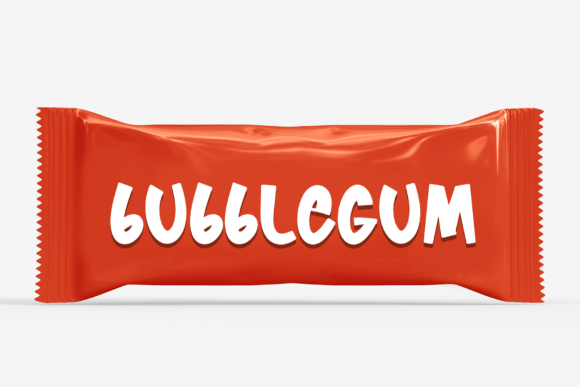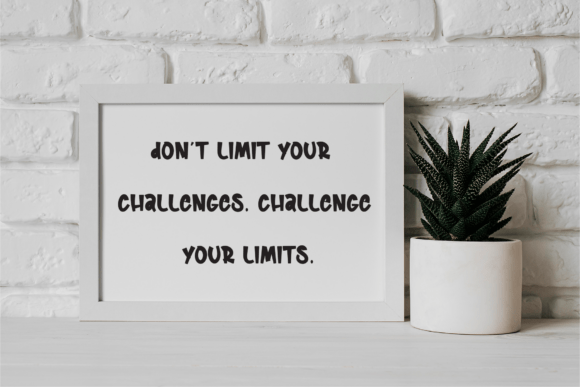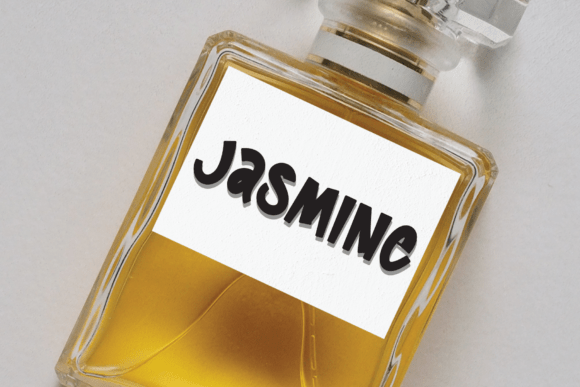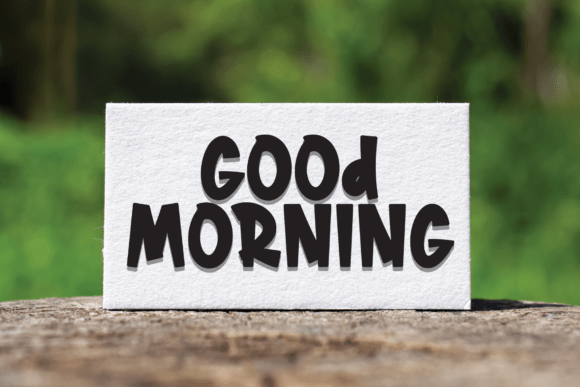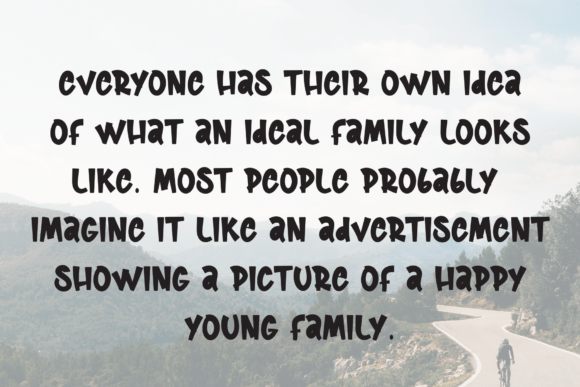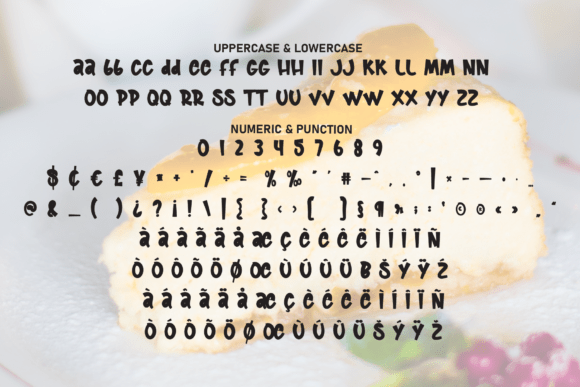
Introduction to Chessecake Font
Chessecake is a casual and neat display font that radiates a fresh, friendly vibe.
With clean lines and a relaxed structure, itโs perfect for packaging, posters, and social media graphics The approachable design adds charm and clarity to projects while maintaining a polished appearance.
Key Features of Chessecake Font
Why Choose Chessecake Font?
Chessecake Font offers exceptional quality and versatility, making it a valuable addition to your design toolkit. Whether you’re creating for personal projects or commercial use, Chessecake Font delivers professional results.